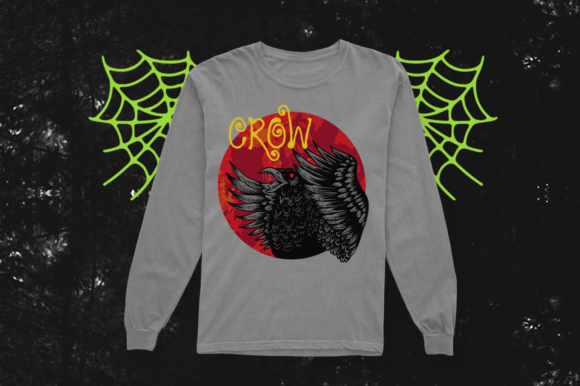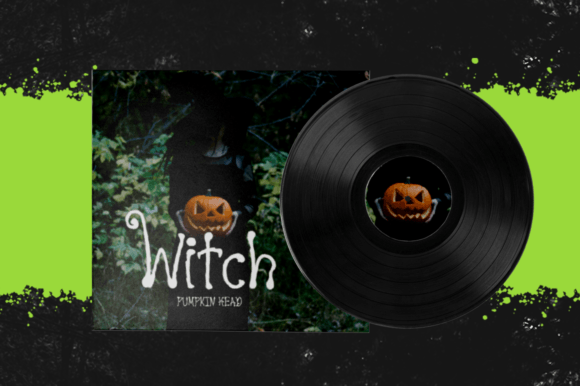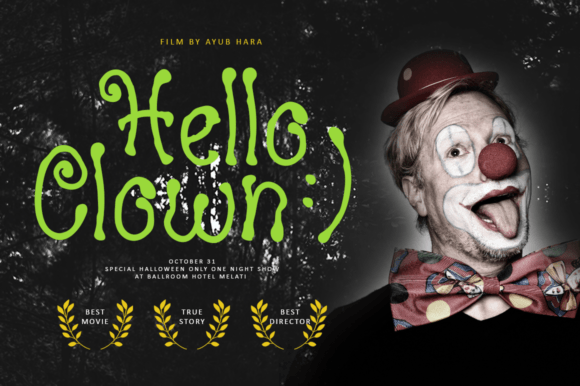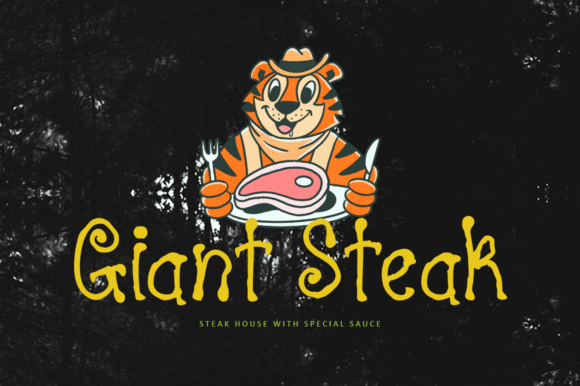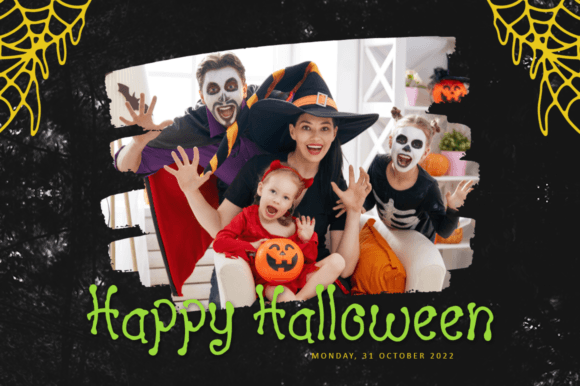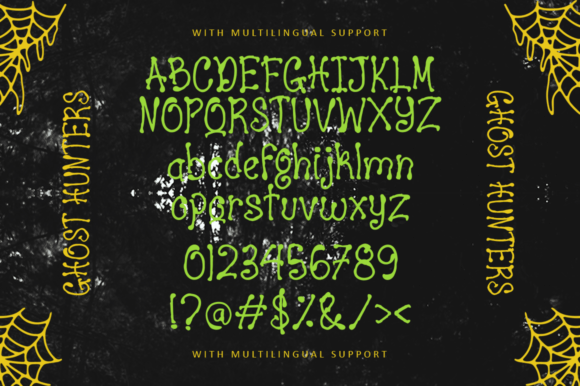
Unleash the Spook: Discover the Ghost Hunters Font for Your Halloween Projects
Are you on the hunt for a font that embodies the spirit of Halloween? Look no further than the Ghost Hunters Font, a spooky brush font designed with a horror Halloween concept in mind. This font is not just any ordinary typeface; it’s a game-changer for designers and crafters looking to add a touch of eeriness and excitement to their projects.
The Features that Make Ghost Hunters Font Stand Out
Ghost Hunters Font boasts several features that make it an outstanding choice for your Halloween and horror-themed projects. Here are some of the key highlights:
- Spooky Brush Style: The font comes with a unique brush style that gives it a hand-crafted, organic feel. This style is perfect for creating a spooky atmosphere in your designs, reminiscent of old horror movies and haunted mansions.
- Horror Halloween Concept: Specifically designed with Halloween in mind, this font captures the essence of the spookiest night of the year. It’s ideal for creating designs that are eerie, mysterious, and captivating.
- Strokes and Alternates: One of the standout features of Ghost Hunters Font is its strokes and alternates. These variations allow you to customize your text, making each piece of design unique. Whether you’re creating a logo, a poster, or a greeting card, these alternates give you the flexibility to experiment with different styles.
- PUA Encoded: Ghost Hunters Font is PUA (Private Use Area) encoded, which means you can easily access all the glyphs and swashes. This encoding makes it simple to use the font’s full range of features without needing additional software or complicated workarounds.
Ghost Hunters Font is incredibly versatile, making it suitable for a wide range of projects. Here are some ideas on how you can use this font:
- Headlines and Logotypes: The bold and unique style of Ghost Hunters Font makes it perfect for headlines and logotypes. It can help your brand or project stand out, especially during the Halloween season.
- Apparel: Design spooky t-shirts, hoodies, or hats that are sure to turn heads. The font’s horror concept is ideal for Halloween-themed apparel.
- Posters and Flyers: Create eye-catching posters and flyers for Halloween parties, horror movie nights, or haunted house events. The font’s eerie style will surely attract attention.
- Music and Film: If you’re involved in the music or film industry, particularly in the horror genre, Ghost Hunters Font can add a creepy touch to your album covers, movie posters, or promotional materials.
- Invitations and Greeting Cards: For those who love to send out themed invitations or greeting cards during Halloween, this font offers a unique way to express your creativity.
- Food and Fashion: Even if your projects aren’t directly related to horror or Halloween, Ghost Hunters Font can still be a great choice for adding a touch of edginess to your designs, especially in the food and fashion industries.
Why Designers and Crafters Love Ghost Hunters Font
Designers and crafters are always on the lookout for fonts that can help them create unique and engaging designs. Ghost Hunters Font offers several benefits that make it a favorite among creative professionals:
- High Versatility: The font’s design and features make it suitable for a wide range of projects, from digital designs to print materials.
- Unique Style: In a sea of fonts, Ghost Hunters Font stands out with its distinctive horror Halloween concept. It can help your designs look more professional and eye-catching.
| Author | illushvara |
Ghost Hunters Font is more than just a font; it’s a creative tool that can elevate your Halloween and horror-themed projects. Its unique spooky brush style, horror Halloween concept, and easy-to-use features make it an excellent choice for designers and crafters. Whether you’re creating logotypes, apparel, posters, or any other type of design, Ghost Hunters Font can help you achieve a spooky and captivating look. So, why settle for ordinary when you can unleash the spook with Ghost Hunters Font?